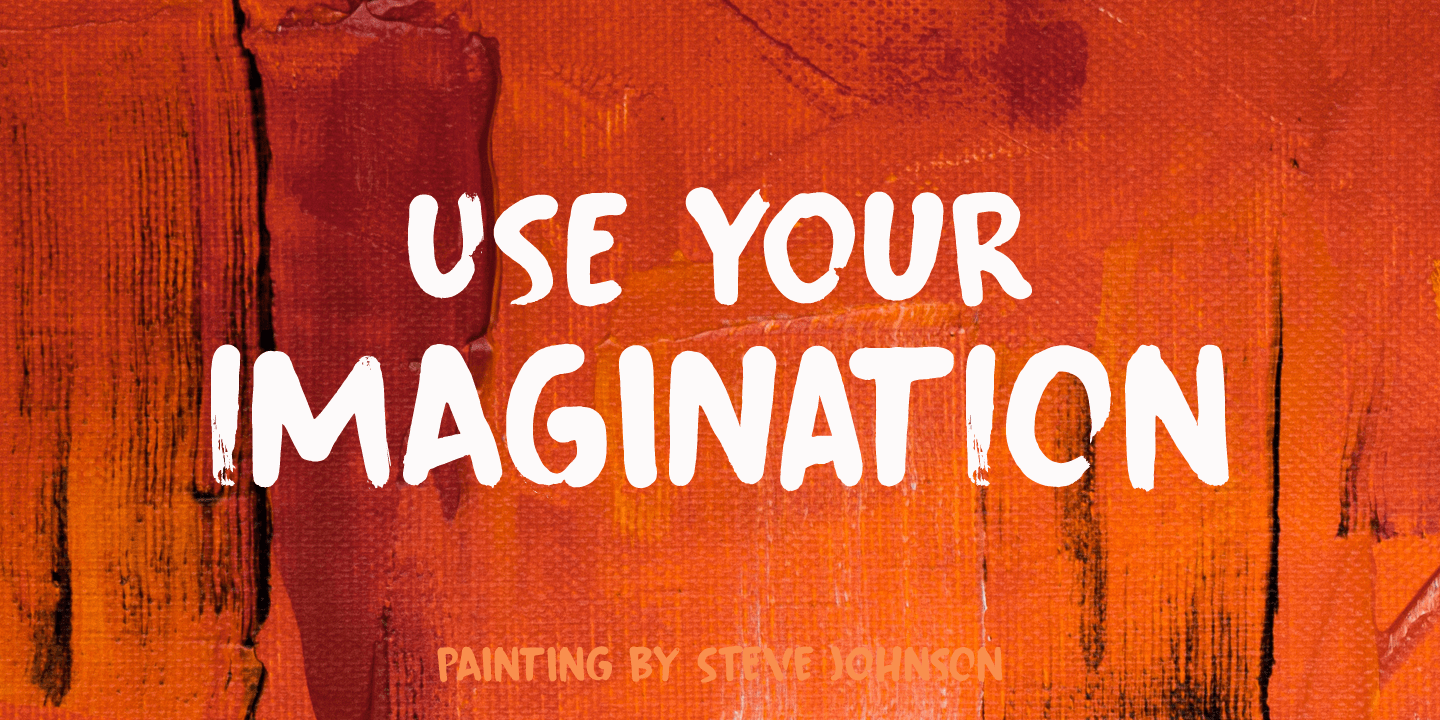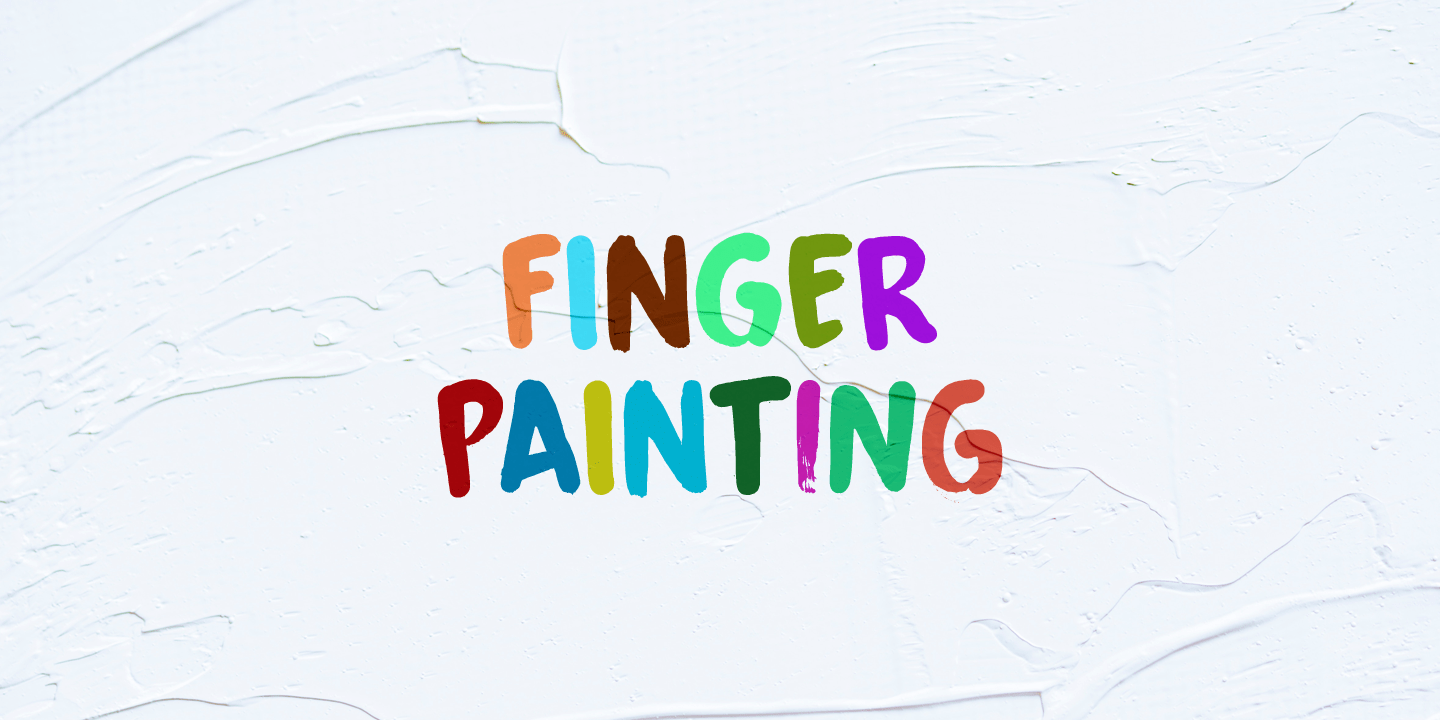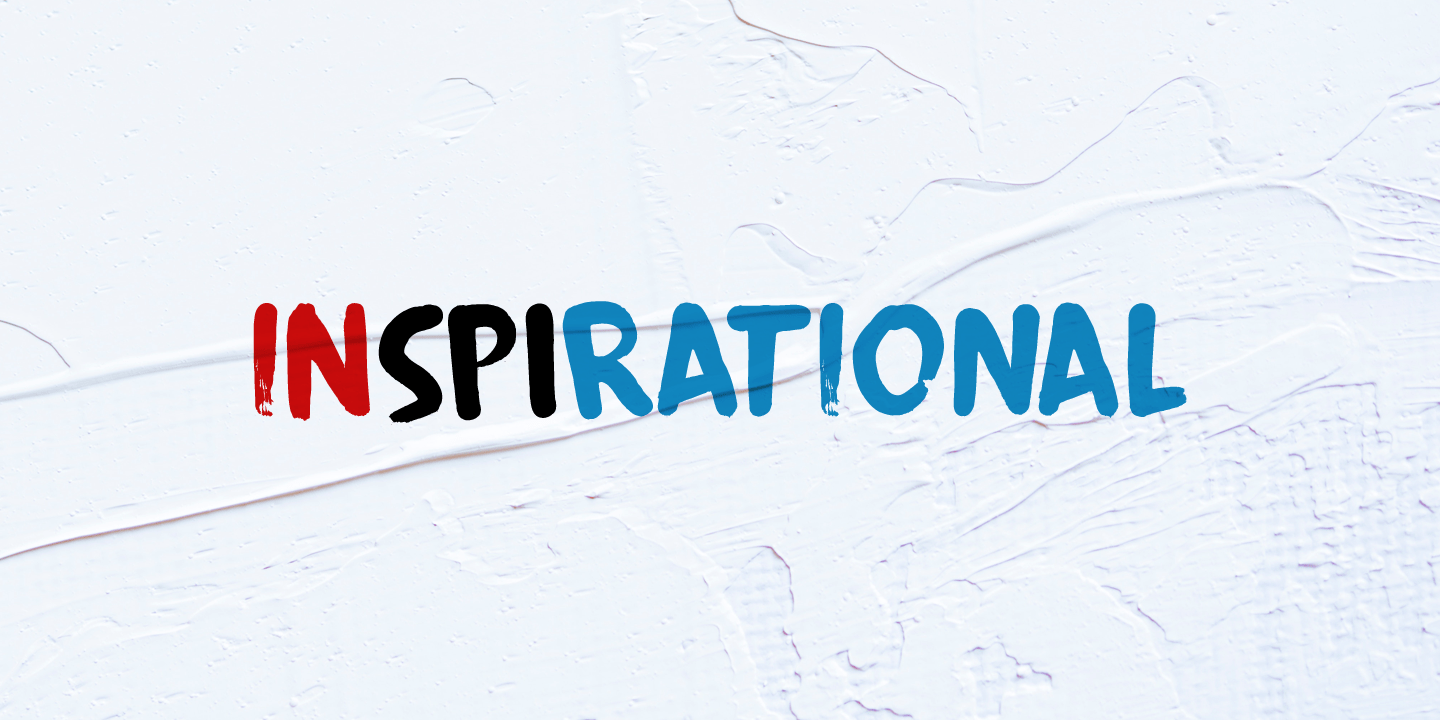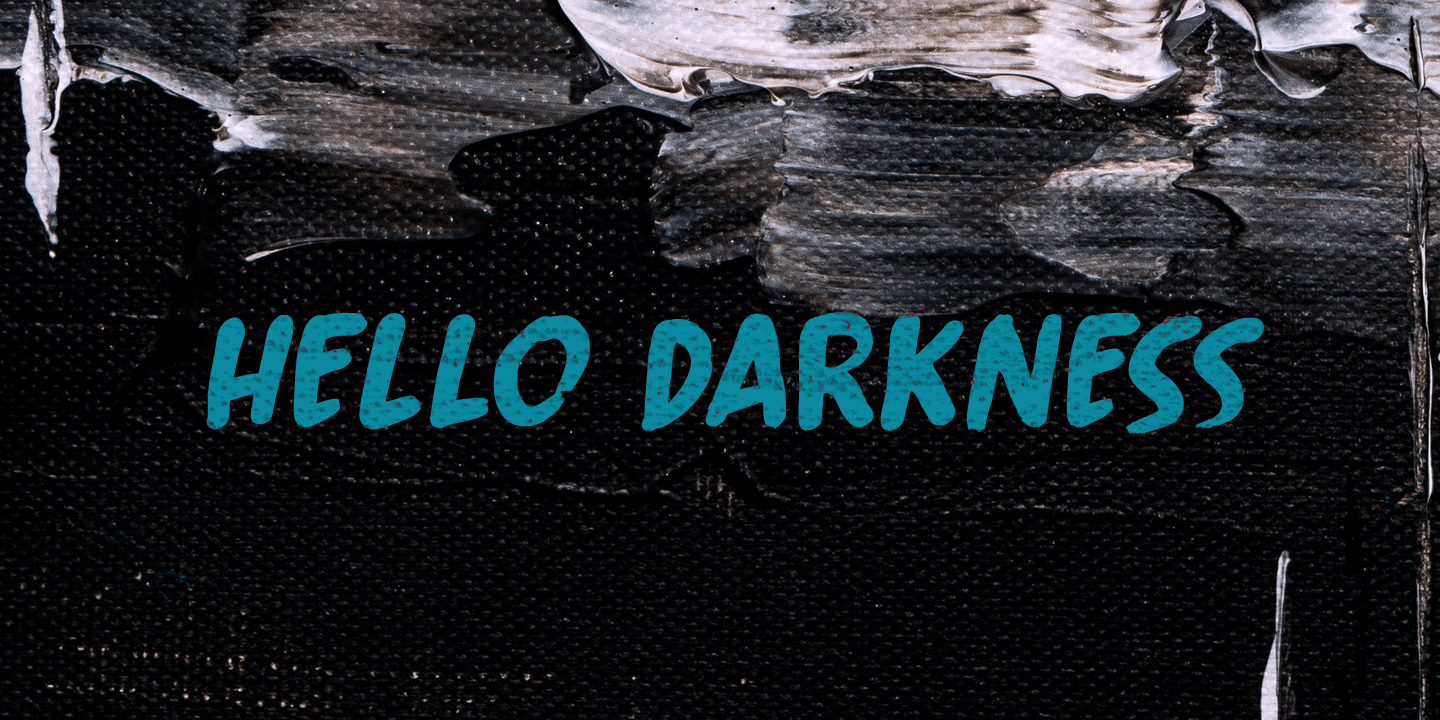
About Fingerfood
I made this font using my index finger and Chinese ink. I thought the ink would come off easily, but I can tell you: it doesn\’t. I have been walking around with a black stained finger for a week now and I do get strange looks from people every so often?…